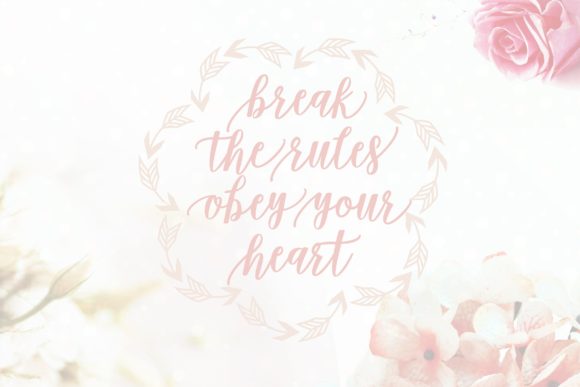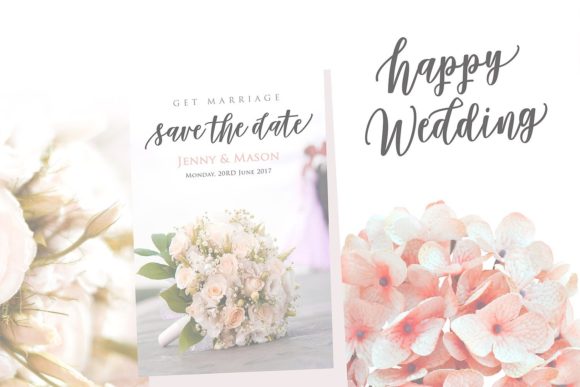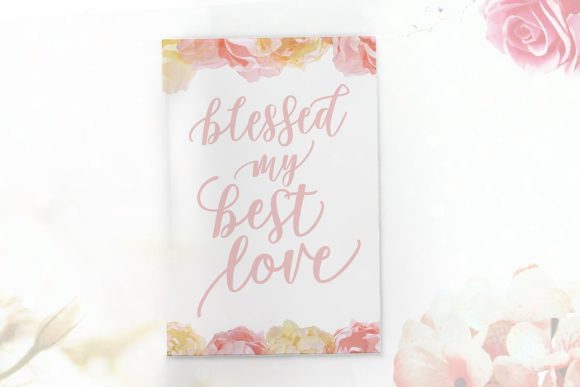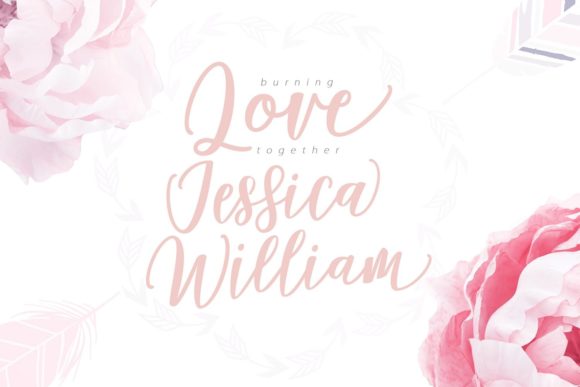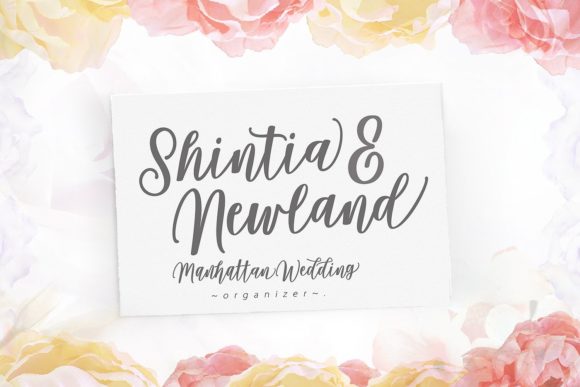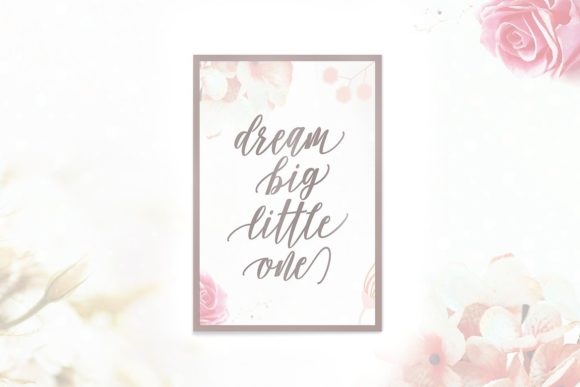
Introducing Damita Script Font: Elevate Your Designs with Elegance and Sophistication
In the world of typography, a font can make or break a design. For those seeking a script font that embodies both beauty and contemporary style, look no further than Damita Script Font. This stunning font is not only a feast for the eyes but also a versatile tool for designers and crafters aiming to create outstanding designs. In this article, we’ll dive deep into the features of Damita Script Font, exploring its artistic feel, technical advantages, and the myriad of ways it can be used to elevate your creative projects.
The Artistic Feel of Damita Script Font
Damita Script Font is a masterpiece of modern typography, boasting a uniform and commensurate style that aligns perfectly with contemporary design trends. Its letters flow with an elegance that can add a touch of sophistication to any project. Whether you’re working on a branding campaign, a wedding invitation, or a packaging design, Damita’s artistic feel ensures that your work stands out from the crowd. The font’s design is meticulously crafted to provide a harmonious reading experience without compromising on style.
One of the key features that set Damita apart is its ability to evoke emotion. The fluidity of its script and the gentle curves of its letters can convey warmth, elegance, and a sense of luxury. This emotional connection is invaluable in design, as it allows designers to create a deeper engagement with their audience. By incorporating Damita Script Font into your projects, you’re not just choosing a font; you’re adopting a voice that speaks of refinement and class.
PUA Encoding: Unlocking Creative Potential
Damita Script Font comes with a significant technical advantage: PUA (Private Use Area) encoding. This feature is a game-changer for designers. PUA encoding means that the font contains a vast array of glyphs and swashes that are easily accessible. For those unfamiliar, glyphs are the visual representations of characters in a font, and swashes are the decorative strokes that can be added to letters for embellishment.
The inclusion of PUA encoding in Damita Script Font opens up a world of creative possibilities. Designers can effortlessly access and incorporate a wide range of glyphs and swashes into their work, allowing for greater customization and personalization. This level of flexibility is especially beneficial for projects that require a unique touch or for brands looking to establish a distinct visual identity.
Applications of Damita Script Font
The versatility of Damita Script Font makes it suitable for a myriad of applications. Here are a few ideas to get you started:
- Branding and Logotypes: Use Damita to create elegant and memorable brand names or logos that reflect a sophisticated image.
- Wedding and Event Invitations: Add a touch of luxury and romance to your invitations with Damita’s beautiful script.
- Packaging Design: Elevate your product packaging with a font that communicates quality and style.
- Marketing Materials: From brochures to flyers, Damita can help your marketing materials stand out with its artistic feel.
- Digital Media: Use Damita in your digital projects, such as website headers, social media graphics, and email newsletters, to add a classy touch.
Damita Script Font is a beautiful addition to any designer’s toolkit. Its contemporary style, artistic feel, and technical advantages like PUA encoding make it an excellent choice for a wide range of projects. Whether you’re a professional designer or a crafter, Damita offers the tools you need to create outstanding designs that leave a lasting impression. By incorporating Damita Script Font into your workflow, you’re not just selecting a font; you’re embracing a design philosophy that values elegance, creativity, and sophistication.
So why settle for ordinary when you can create something extraordinary? Fall in love with Damita’s artistic feel and let it guide your creative journey. With Damita Script Font, the possibilities are endless, and the potential for creating something truly remarkable is always within reach.